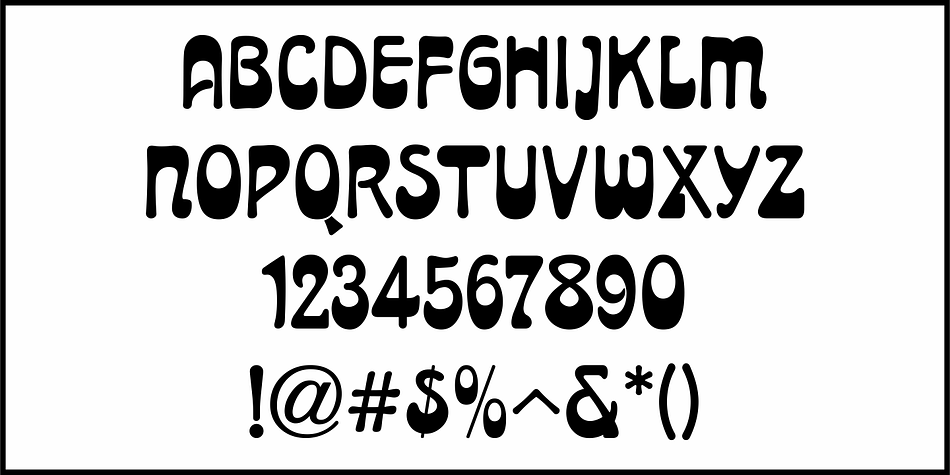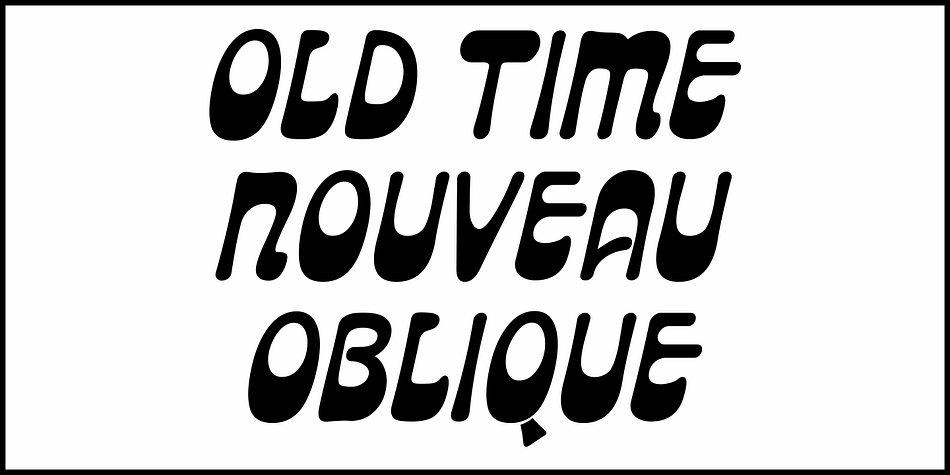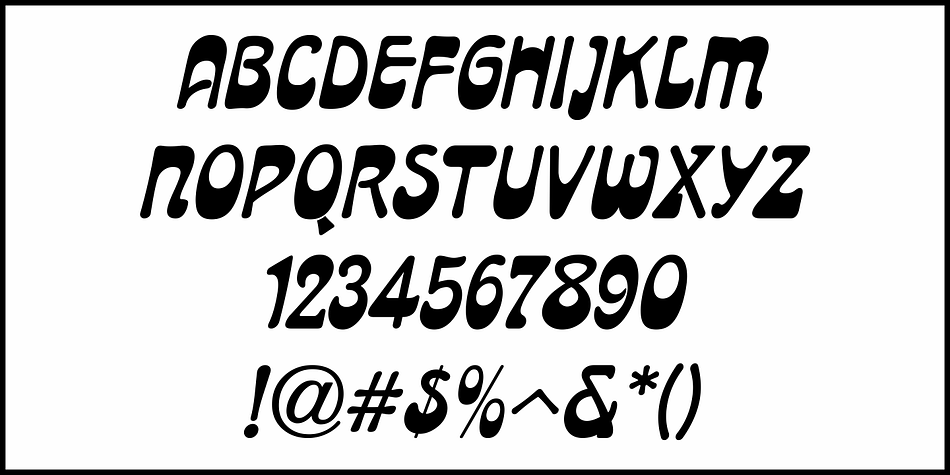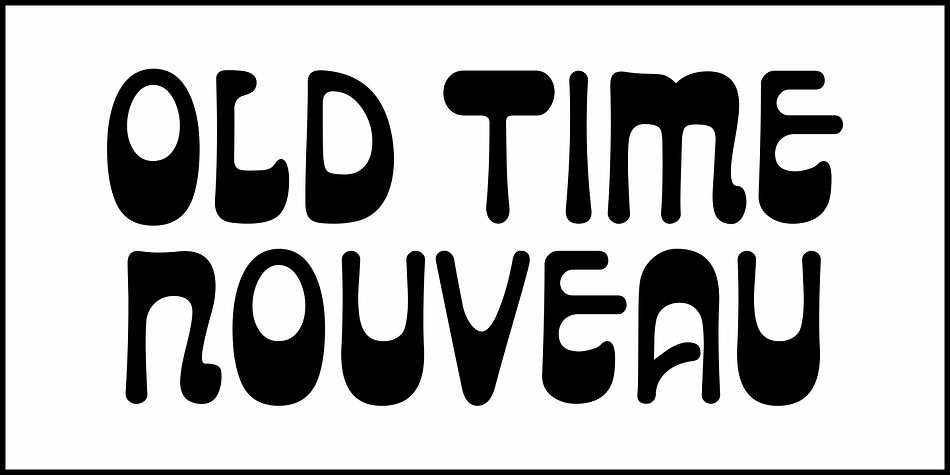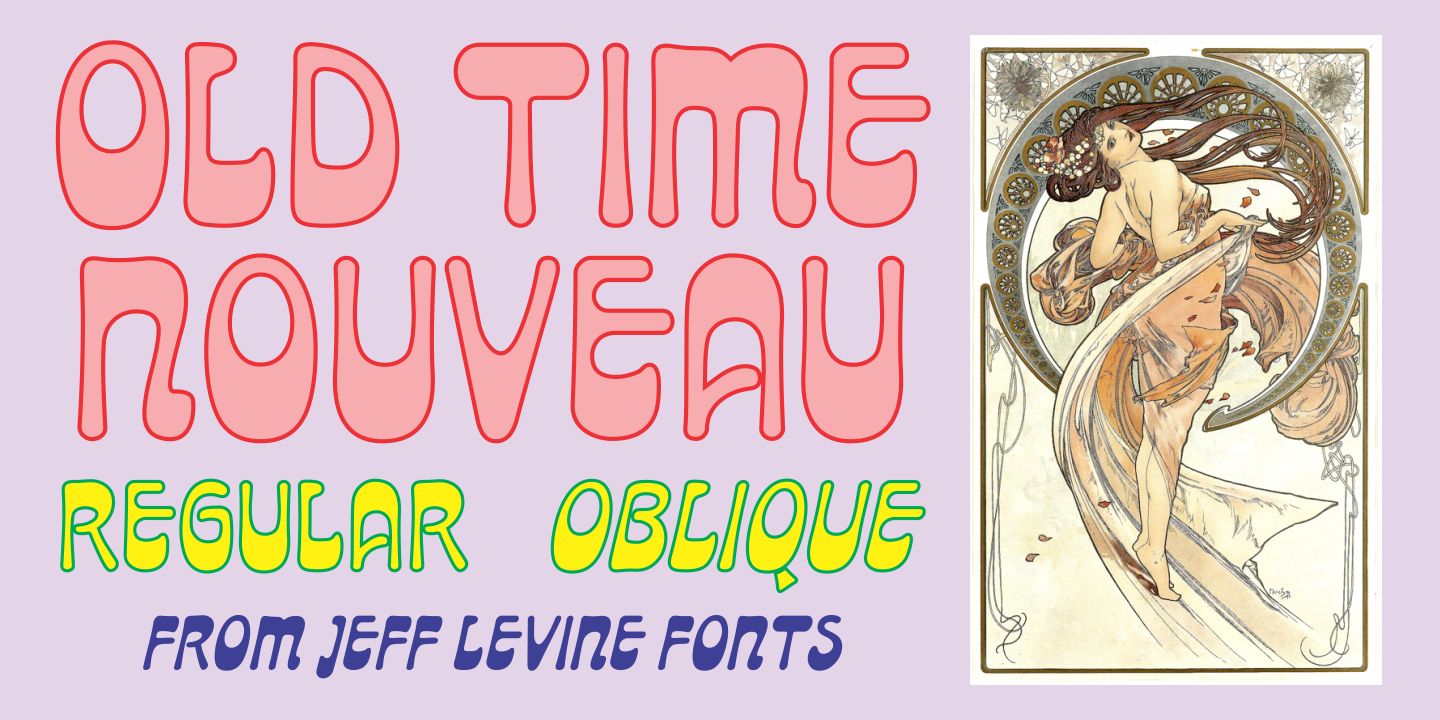
OLD TIME NOUVEAU JNL
Designed by Jeff Levine, Old Time Nouveau JNL is an art nouveau font family. This typeface has two styles and was published by Jeff Levine Fonts.
The 1914 sign lettering instruction book “Art Alphabets and Lettering” by J. M. Bergling showcased many hand lettered alphabets as an inspiration to both up-and-coming and established sign painters.
One page in particular featured a classic free-form Art Nouveau style with rounded shapes.  This style of lettering was emulated in the 1960s by designers of rock concert posters, so the style is reminiscent of the Art Nouveau period as well as the 1960s.
Old Time Nouveau JNL is available in both regular and oblique versions.